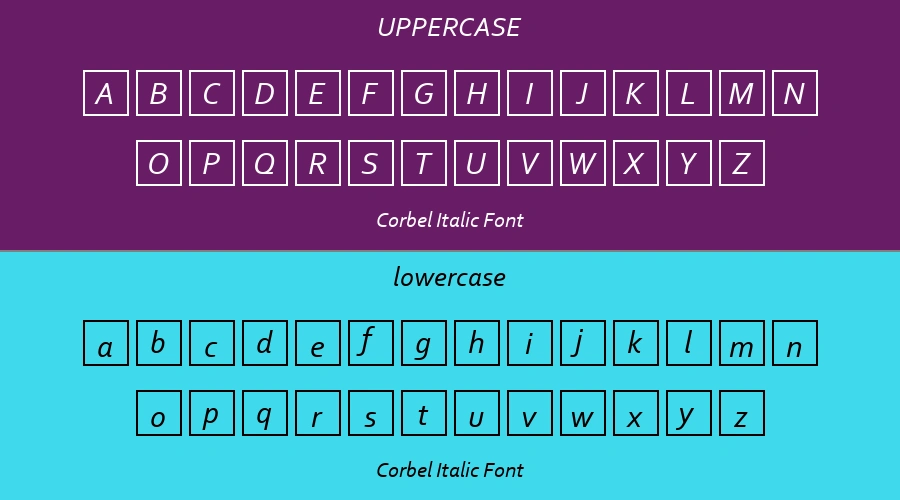
About Corbel Italic Font
When typographic excellence matters most, Corbel Italic Font delivers through its thoughtful blend of distinctive terminals and consistency. Specially crafted for architectural plans, it offers the consistency and technical excellence required for sophisticated design work. Every detail serves a purpose.
The character set showcases thoughtful details like subtle details alongside functional arrow sets. This proves especially valuable in running text, where numerical alignment directly influences results. Particular attention was paid to proportion and educational suitability during development.